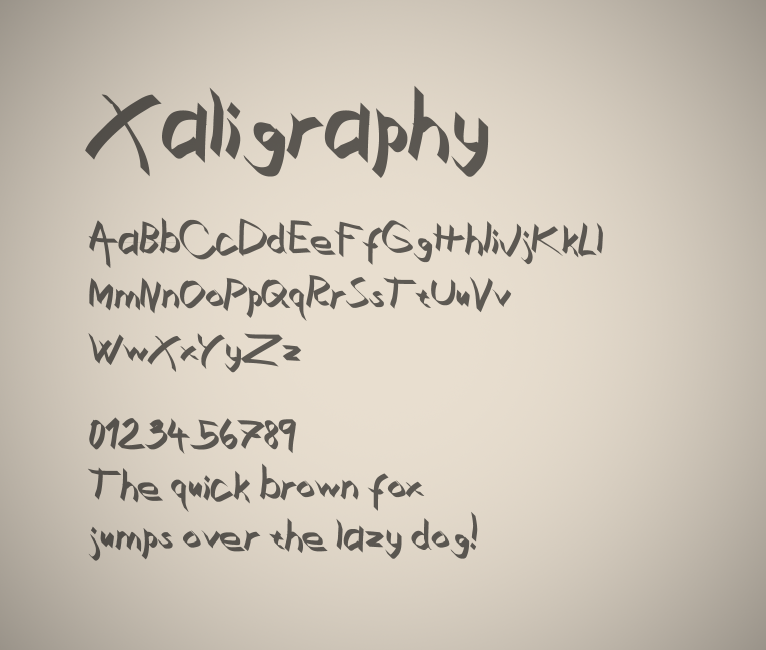
Preview and download Xaligraphy Font. Created by Zdeněk Gromnica a.k.a. FutureMillennium in Script Brush styles with Free for personal use license.
Free for non-commercial use only. To purchase a commercial license, please go to http://futuremillennium.com/fonts/license/xaligraphy or contact me. A semi-calligraphic family. Comes in 6 variations: Regular, Italic, Bold, BoldItalic, Thin and ThinItalic. Licensed under the Creative Commons Attribution-NonCommercial-NoDerivs 3.0 Unported License (CC BY-NC-ND 3.0) |